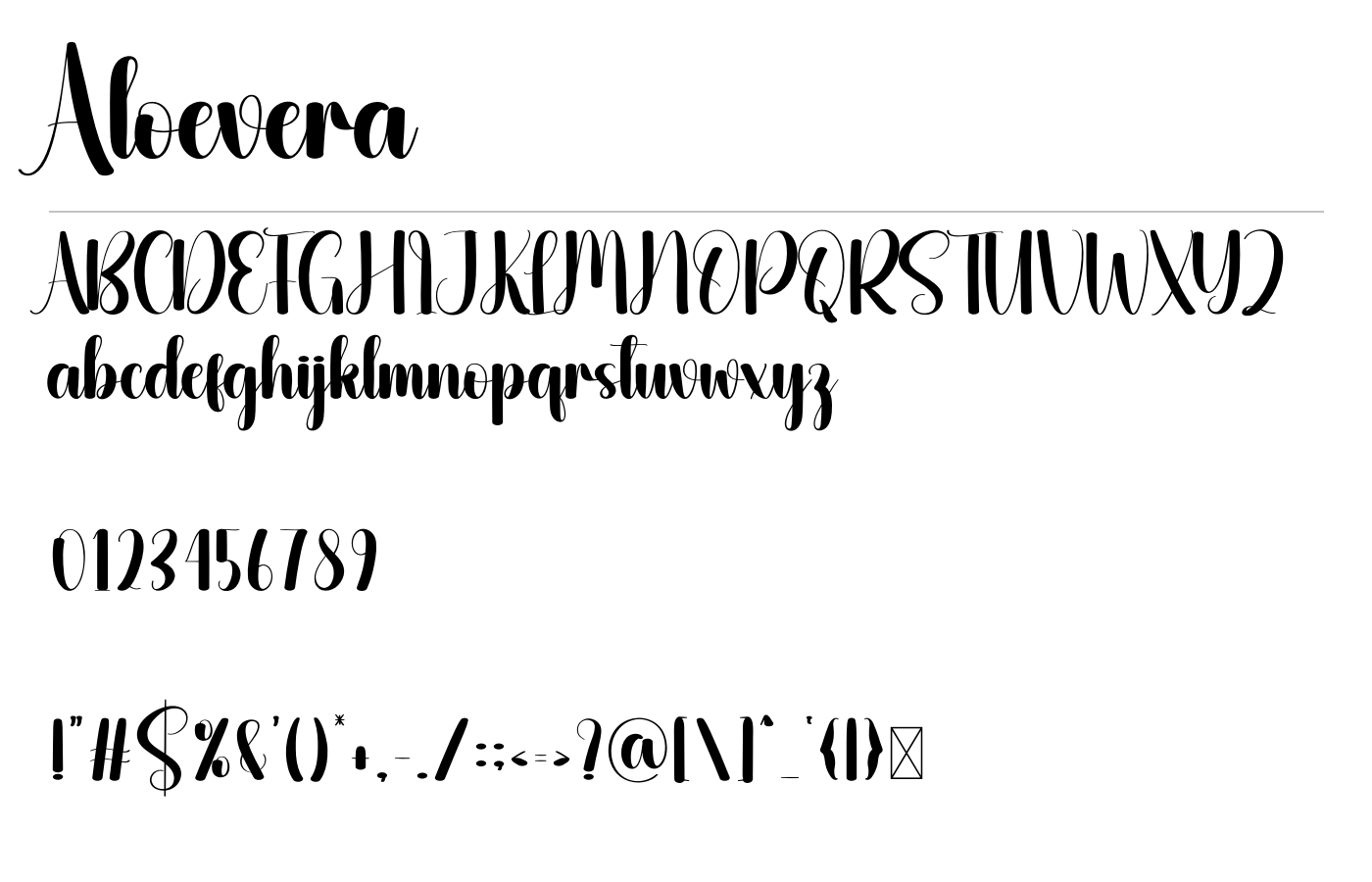
Aloevera is a stylish script font that combines elegant, flowing lines with bold, playful strokes. Its tall letterforms and distinctive swashes create a lively, modern look that works beautifully for branding, invitations, and creative headlines. This font adds a touch of sophistication while maintaining a fun and approachable vibe, perfect for fashion, beauty, and lifestyle projects.
Aloevera Font